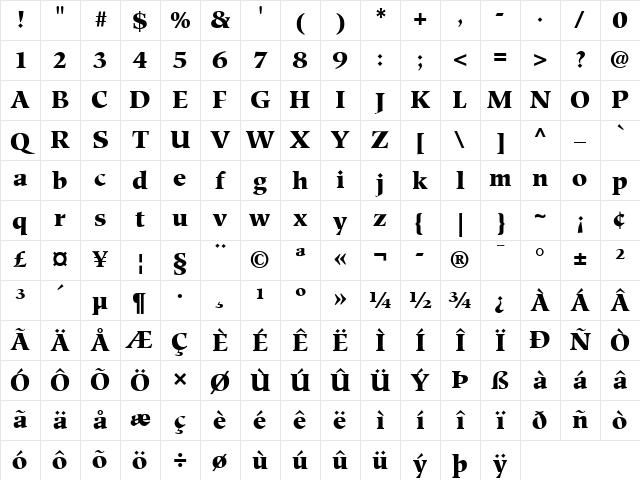
Hiroshige LT Medium Bold
Design Context for Hiroshige LT Medium
Hiroshige LT Medium is a composed and adaptable typeface that performs quietly and consistently across a wide range of design contexts. Its bold stroke weight gives it real presence on the page.